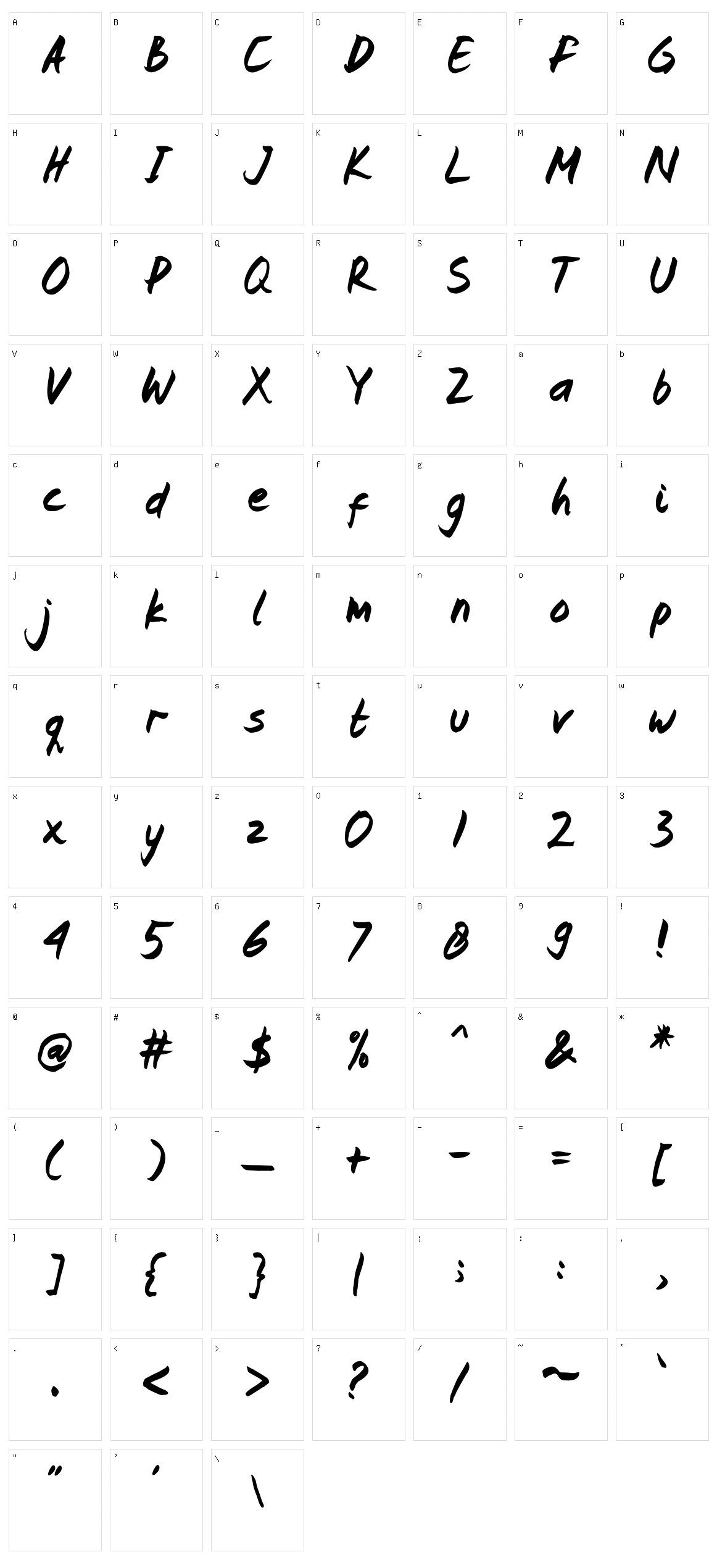
The free font Frederick Greatong is carefully designed by Thomas Joko Purba, showcasing a thoughtful balance of creativity and usability and falls under the Script font style. When you download the ZIP file, it contains only 80.82 KB of font files, making it lightweight and quick to download. Please review the license details below to understand permitted usage and distribution rights. If license information is not available, we recommend using this font for personal projects only or contacting the author directly for commercial usage permissions.